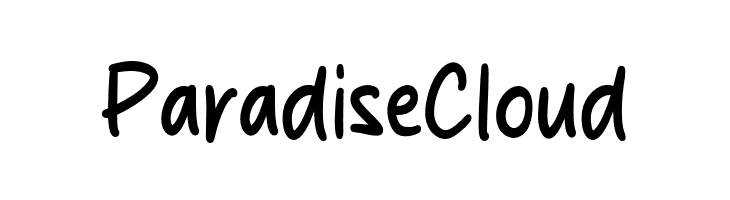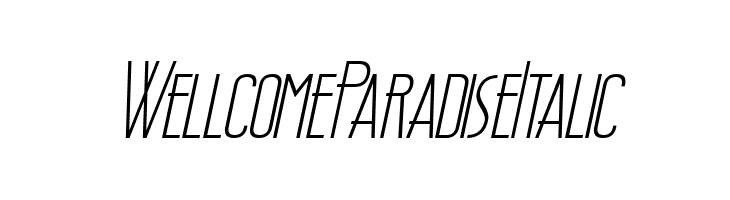
A bold, italicized font with a modern, dynamic style and consistent stroke weight.
A modern, italic, and condensed font with sleek lines and uniform stroke weight.
A playful, handwritten font with smooth, rounded edges and a friendly appearance.
A hand-drawn, playful font with tall, slender letters and varying stroke widths.
A playful and whimsical font with smooth, rounded letterforms.
A playful, bold font with rounded edges and a hand-drawn style.
A bold, distorted font with a glitch art aesthetic.
A playful, casual handwritten font with smooth, rounded strokes.
A playful handwritten font with rounded edges and a casual, friendly style.
A bold, decorative font with high contrast and artistic flair.